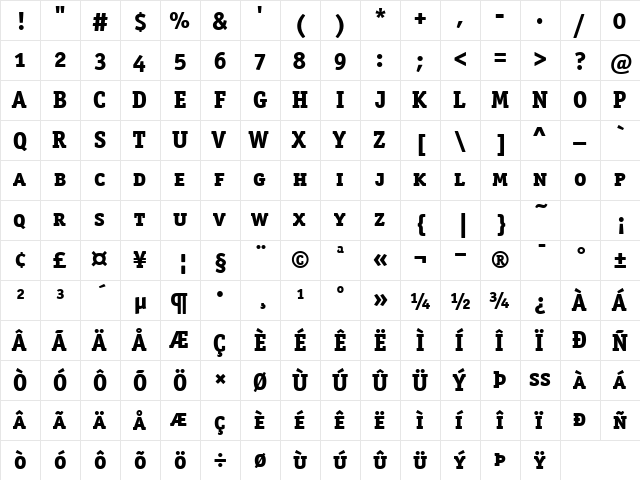
OfficinaSerMdSCITCTT ExtraBold Font Preview
OfficinaSerMdSCITCTT ExtraBold
| Foundry | International Typeface Corporation |
| Designer | Erik Spiekermann / Ole Schaefer |
Design Context for OfficinaSerMdSCITCTT Typeface
OfficinaSerMdSCITCTT takes a measured approach to typography — its balanced proportions and neutral character make it a reliable workhorse for both digital and print work. Its bold stroke weight gives it real presence on the page.